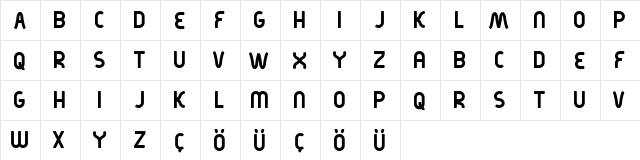
kirschbaum Font Preview
kirschbaum kirschbaum
kirschbaum Font Details
| Style | kirschbaum |
| Foundry | alper ide |
| Designer | alper ide |
Design Context for kirschbaum Typeface
kirschbaum takes a measured approach to typography — its balanced proportions and neutral character make it a reliable workhorse for both digital and print work.